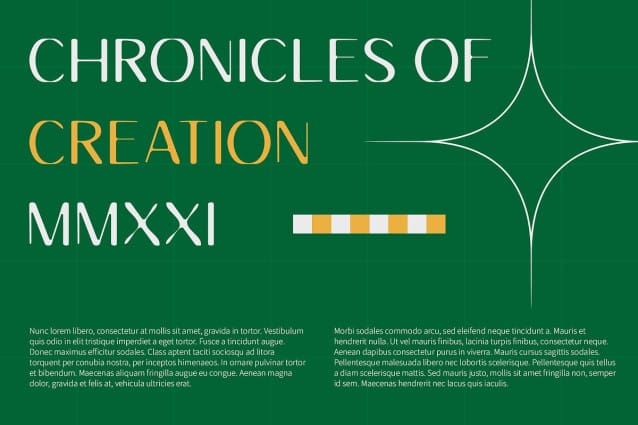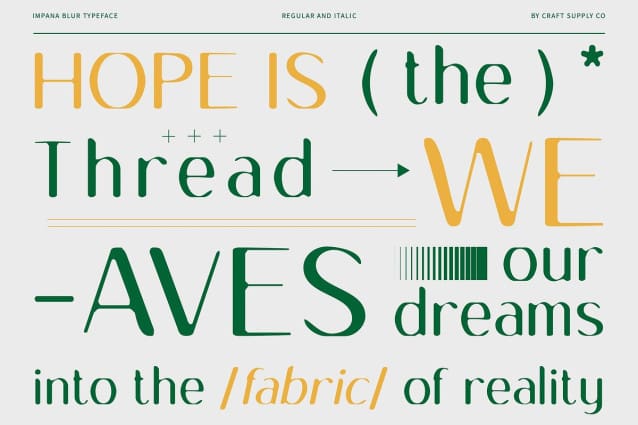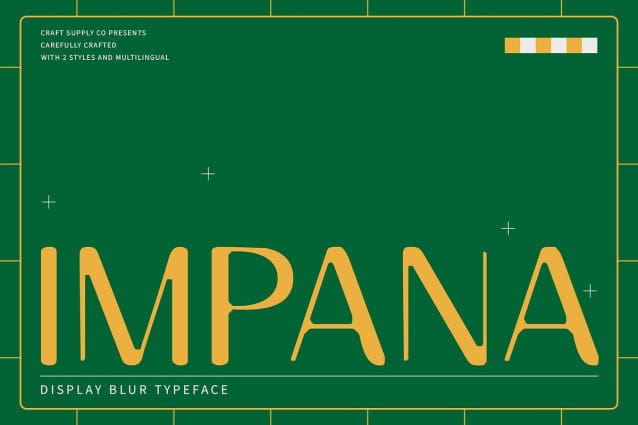
Impana Blur Font
Impana Blur Font is a modern sans-serif font that merges contemporary design with a distinctive blur effect. Featuring sleek, clean lines, this font creates a unique and stylish appearance by incorporating a soft blur, adding a dynamic and innovative edge to your designs.
Versatile for Modern Applications Ideal for a range of current design applications, Impana Blur excels in branding, digital media, and trendy marketing materials. Its versatile design provides a modern touch while standing out with its eye-catching blur effect.
Perfect for Trendy and Stylish Projects Whether used in branding, digital interfaces, or promotional materials, Impana Blur offers a contemporary aesthetic with a distinctive flair. Its combination of modern simplicity and dynamic blur effect makes it an excellent choice for projects that require a stylish and forward-thinking look.
Elevate Your Design with Impana Blur Add a unique and modern touch to your design projects with ImpanaBlur. Its clean lines and distinctive blur effect offer both sophistication and originality, making it perfect for creating impactful and memorable visuals.